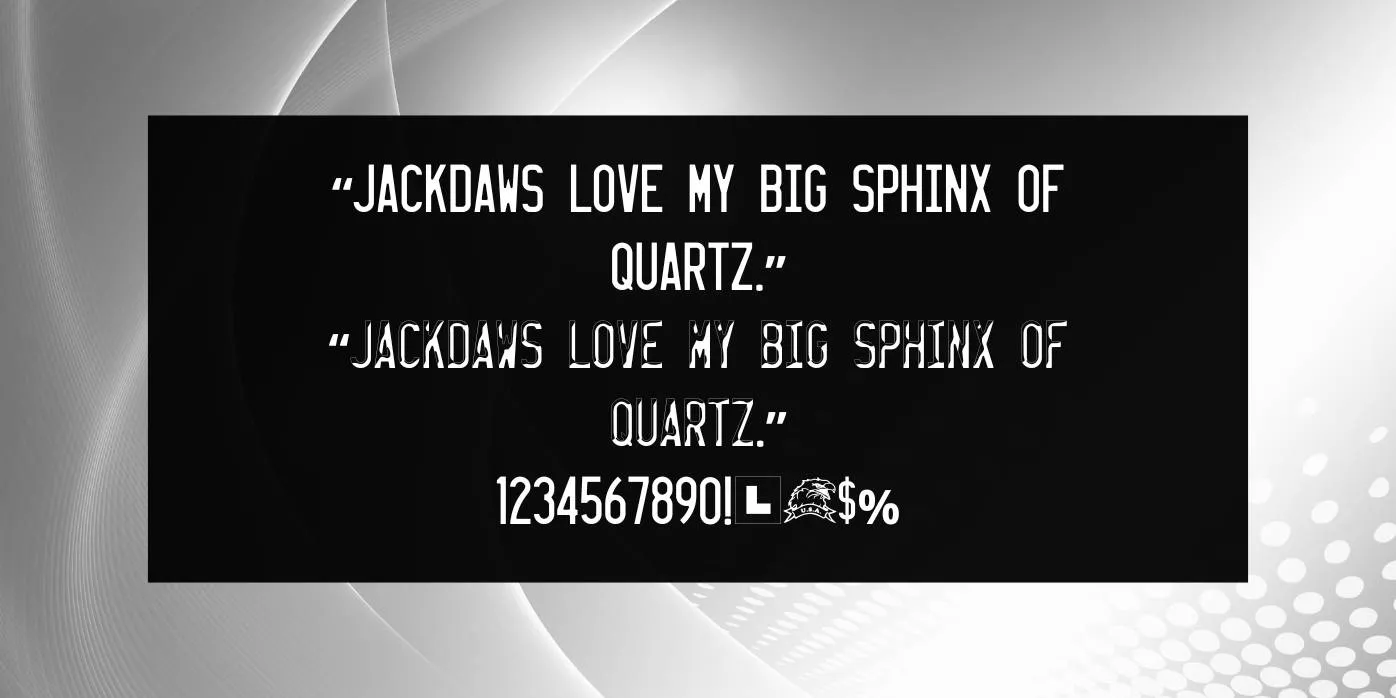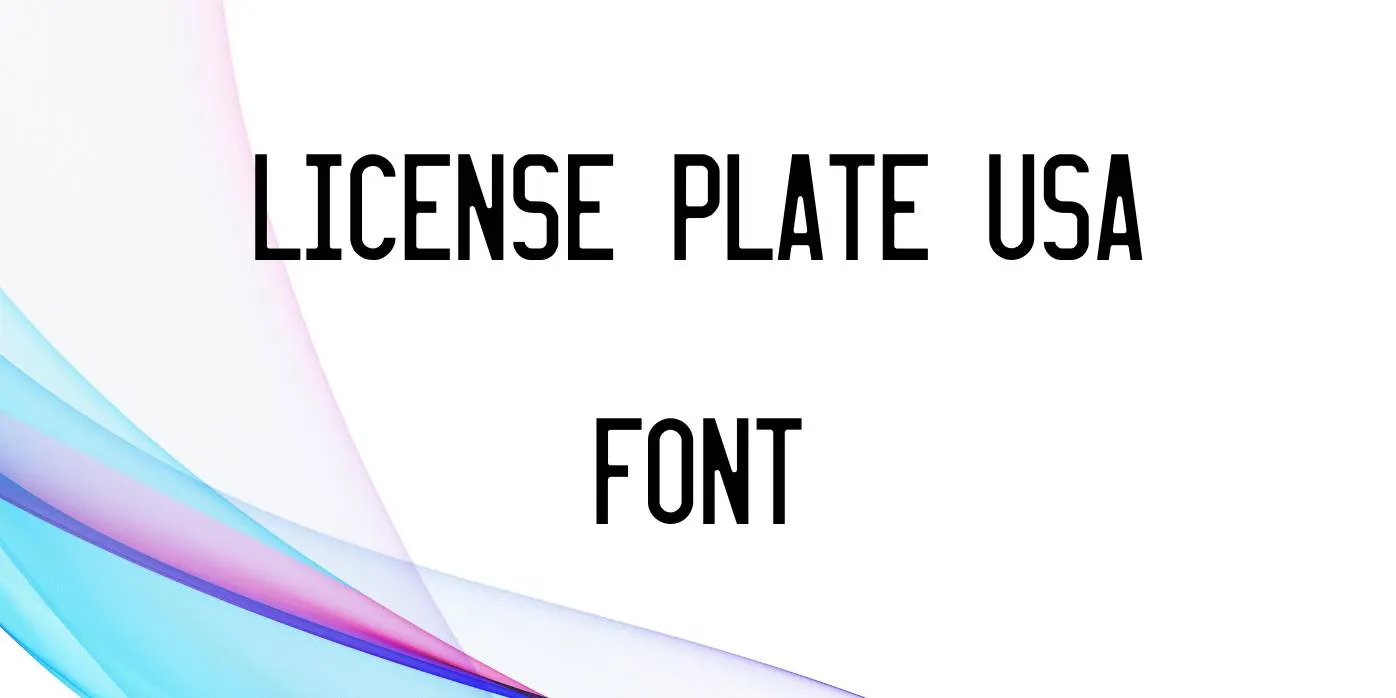
License Plate USA Font
License Plate USA Font is a basic font. SpideRaYsfoNtS is the designer of this typeface. There are 88 awesome glyphs for this font. This basic font has one regular style.
The characters of this typeface support all capital letters, lowercase letters, digits, and punctuation marks. This typeface was first seen in the universal music release of Lady Gaga in 2017. The online generator tool for this typeface is stunning. You can generate the text in this typeface using this tool.